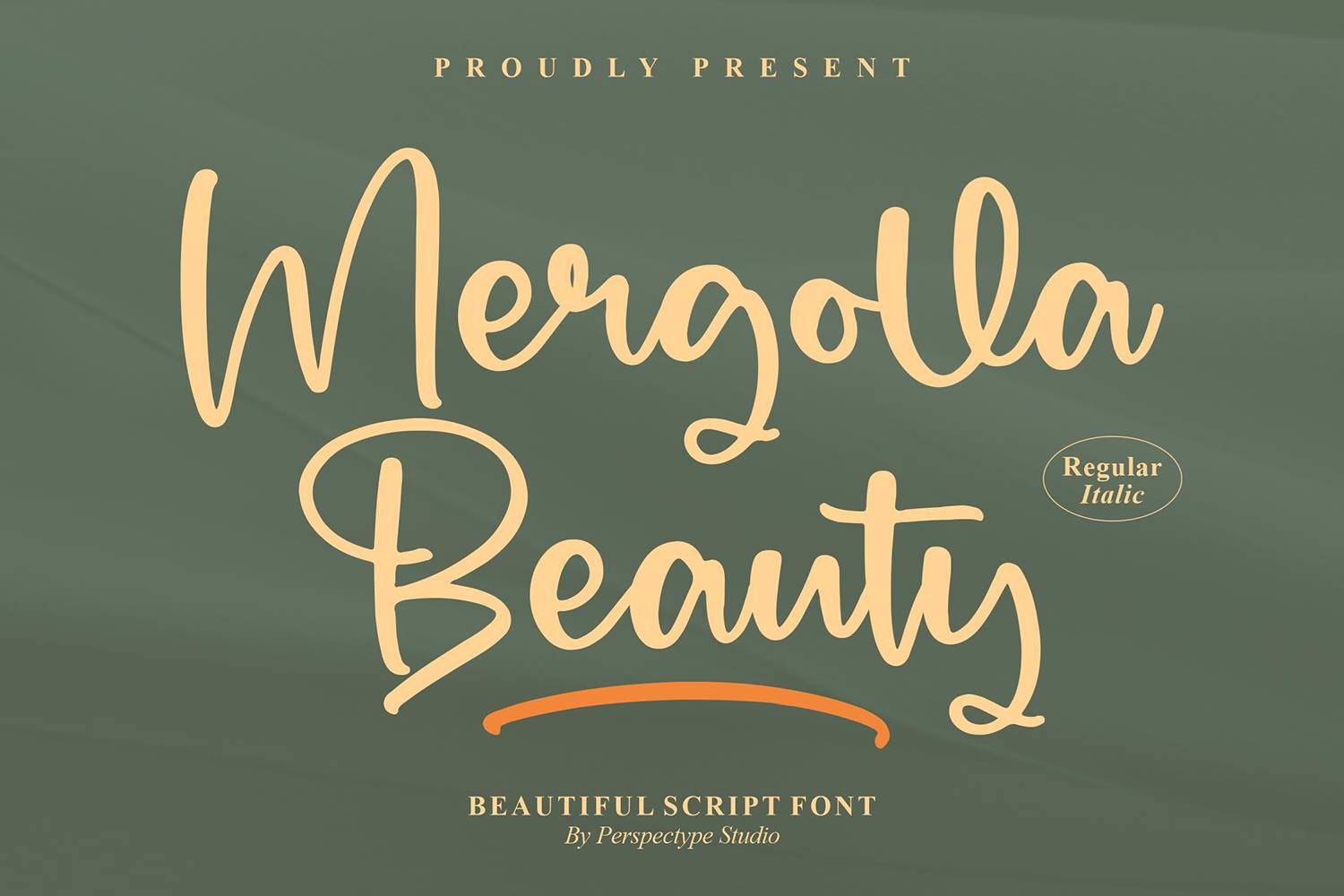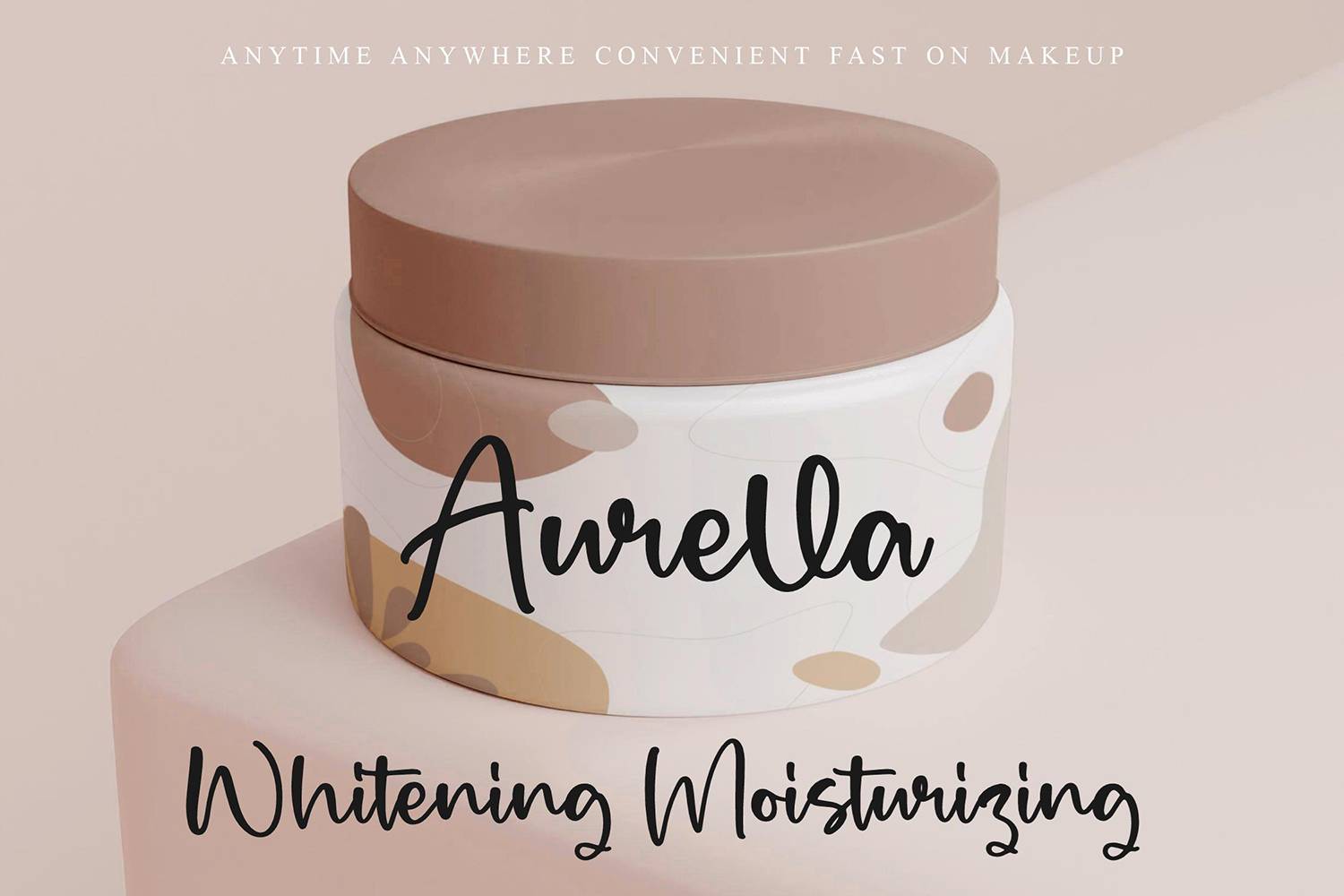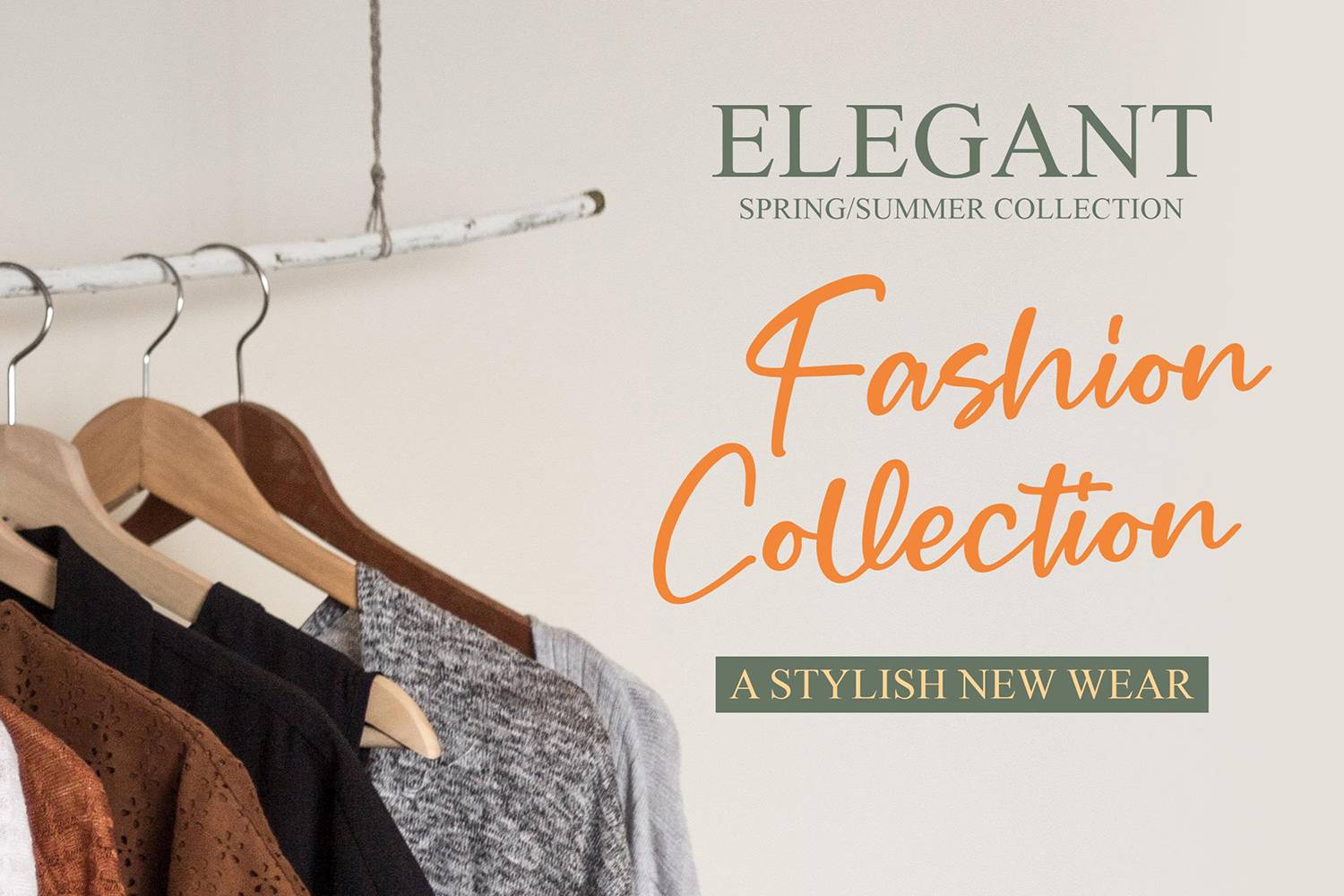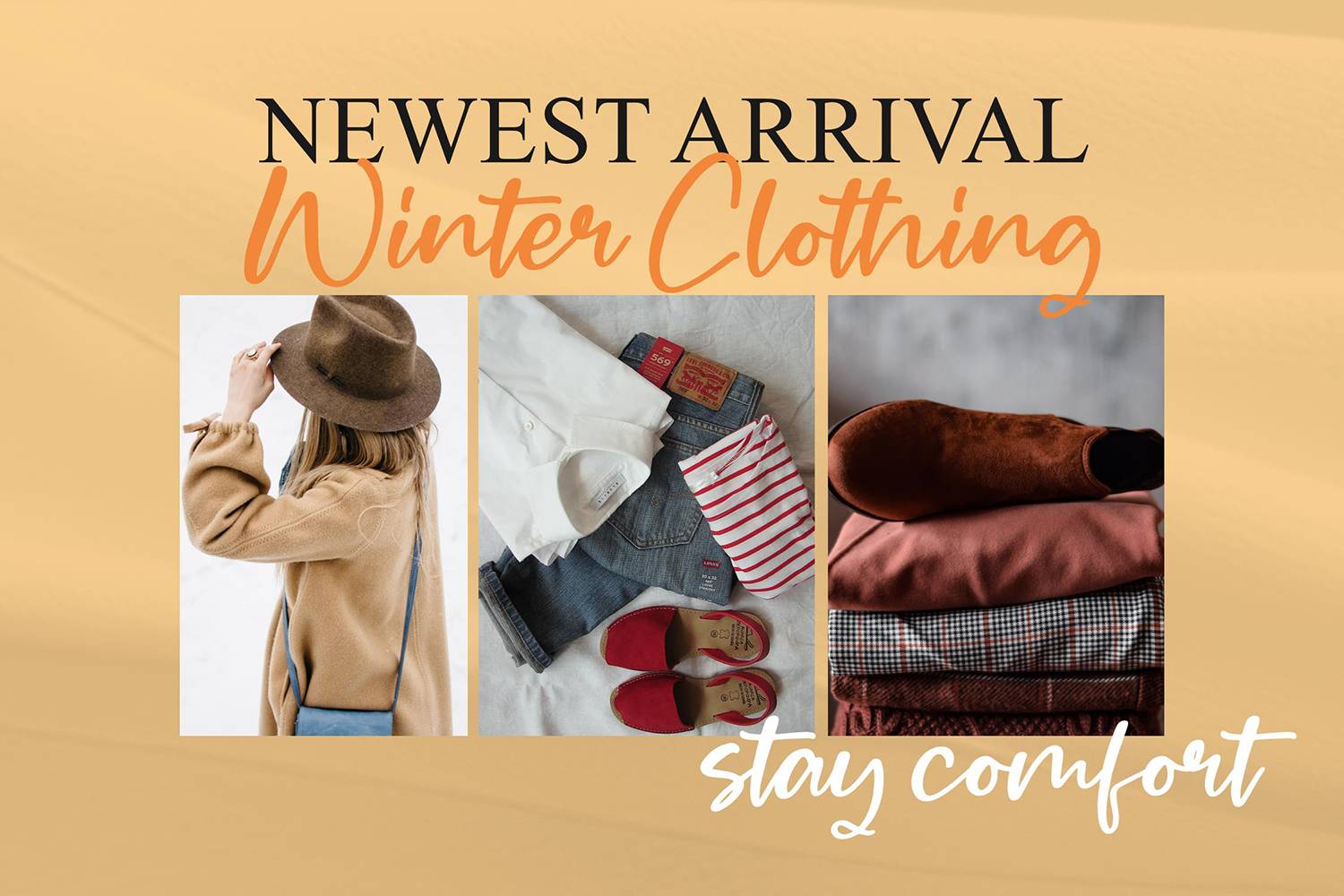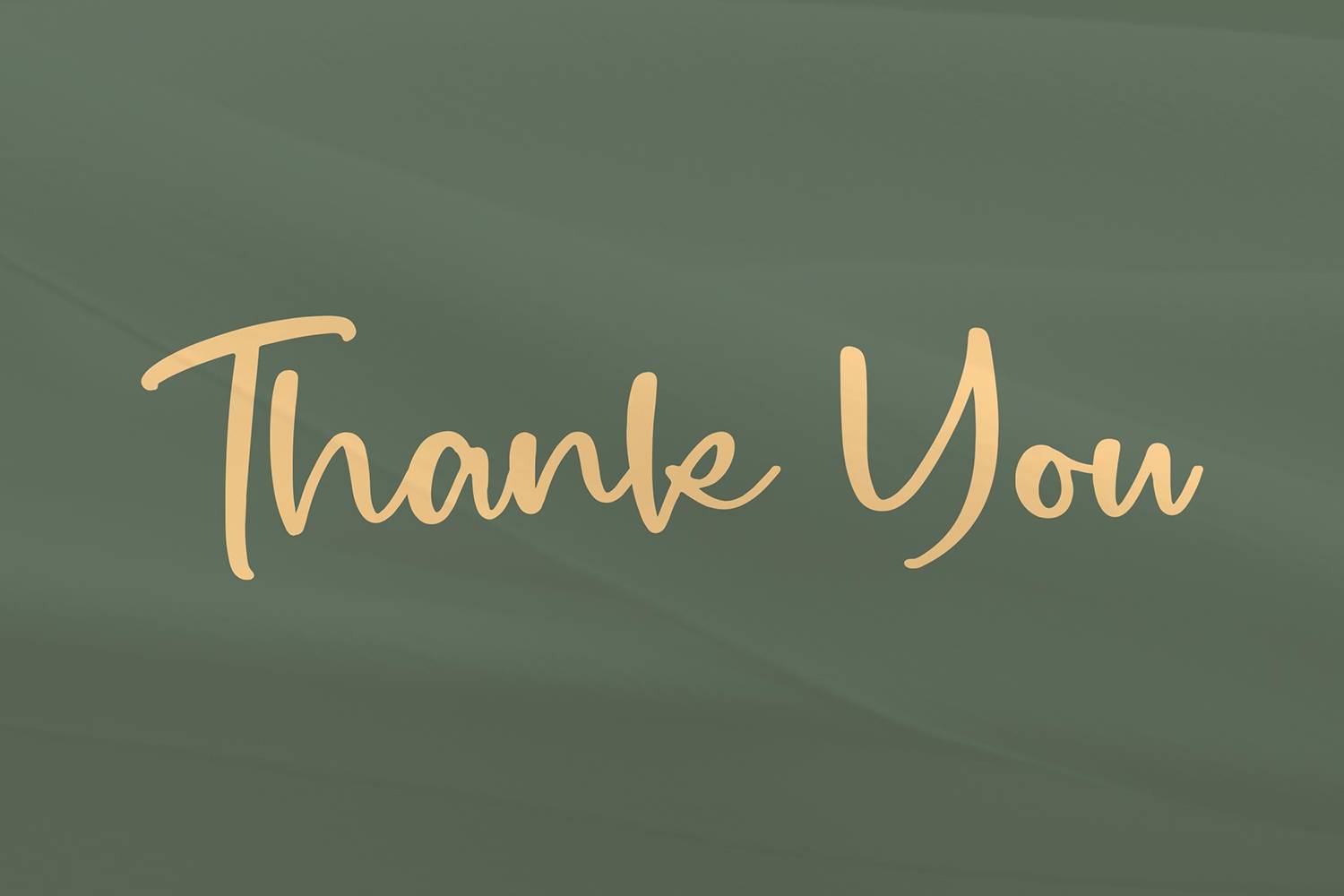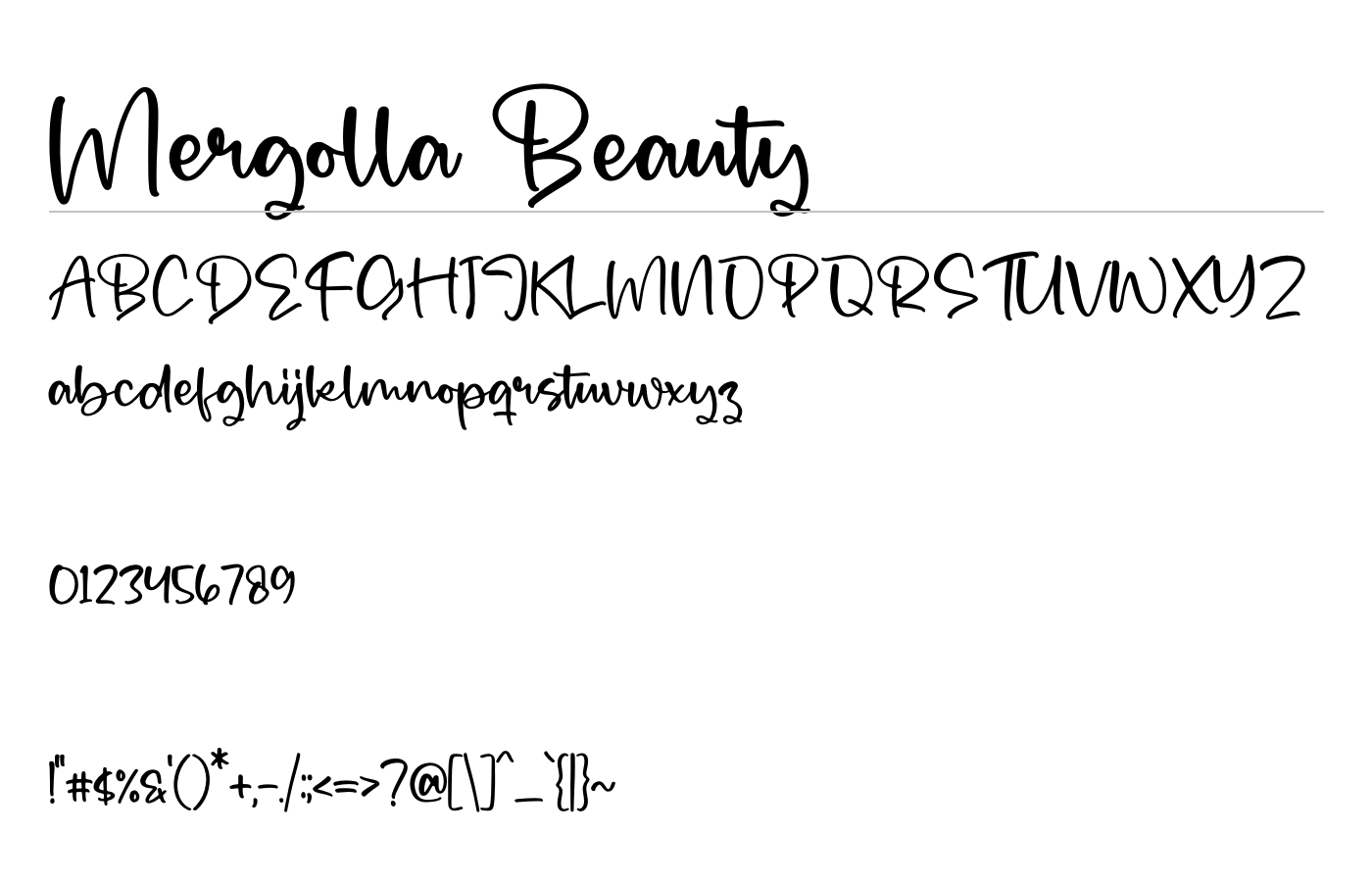
Mergolla Beauty is a playful and elegant handwritten script font with a casual, flowing style that feels personal and inviting. Its medium weight and rounded, slightly irregular letterforms give it a lively and approachable character, making it ideal for creative branding, beauty products, and feminine designs. Perfect for logos, invitations, and social media, it adds a charming and friendly touch while remaining highly readable.
Mergolla Beauty Font
About Mergolla Beauty Font